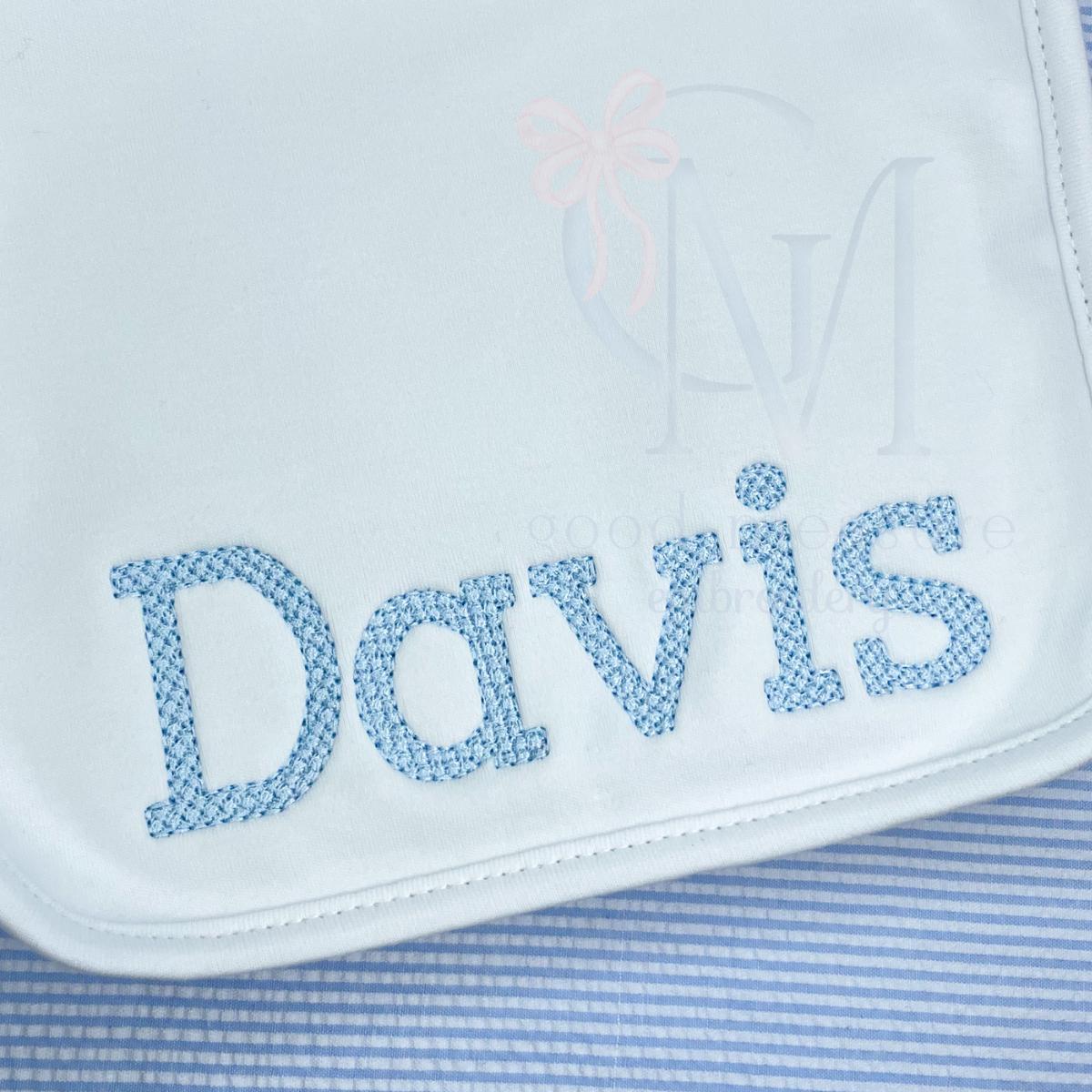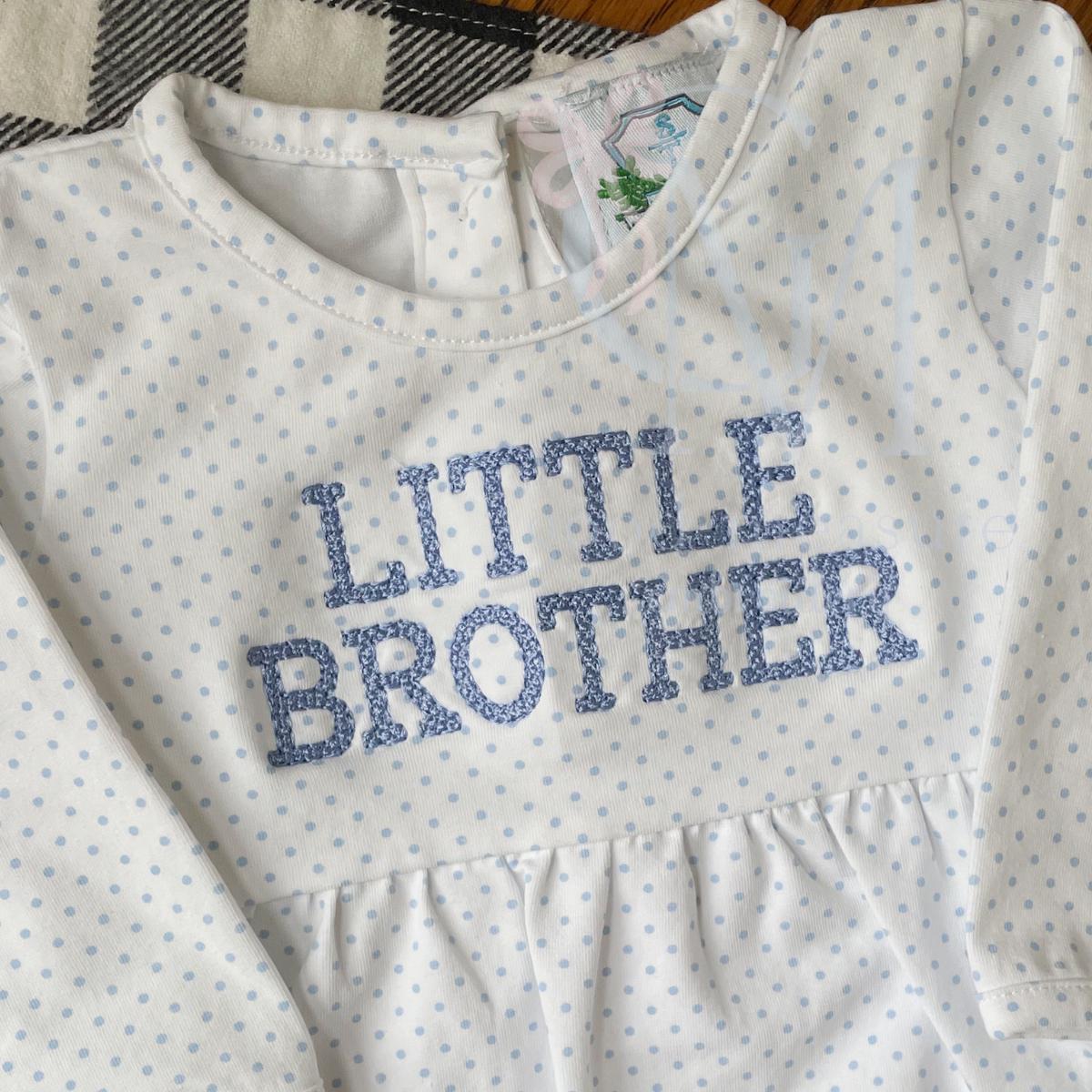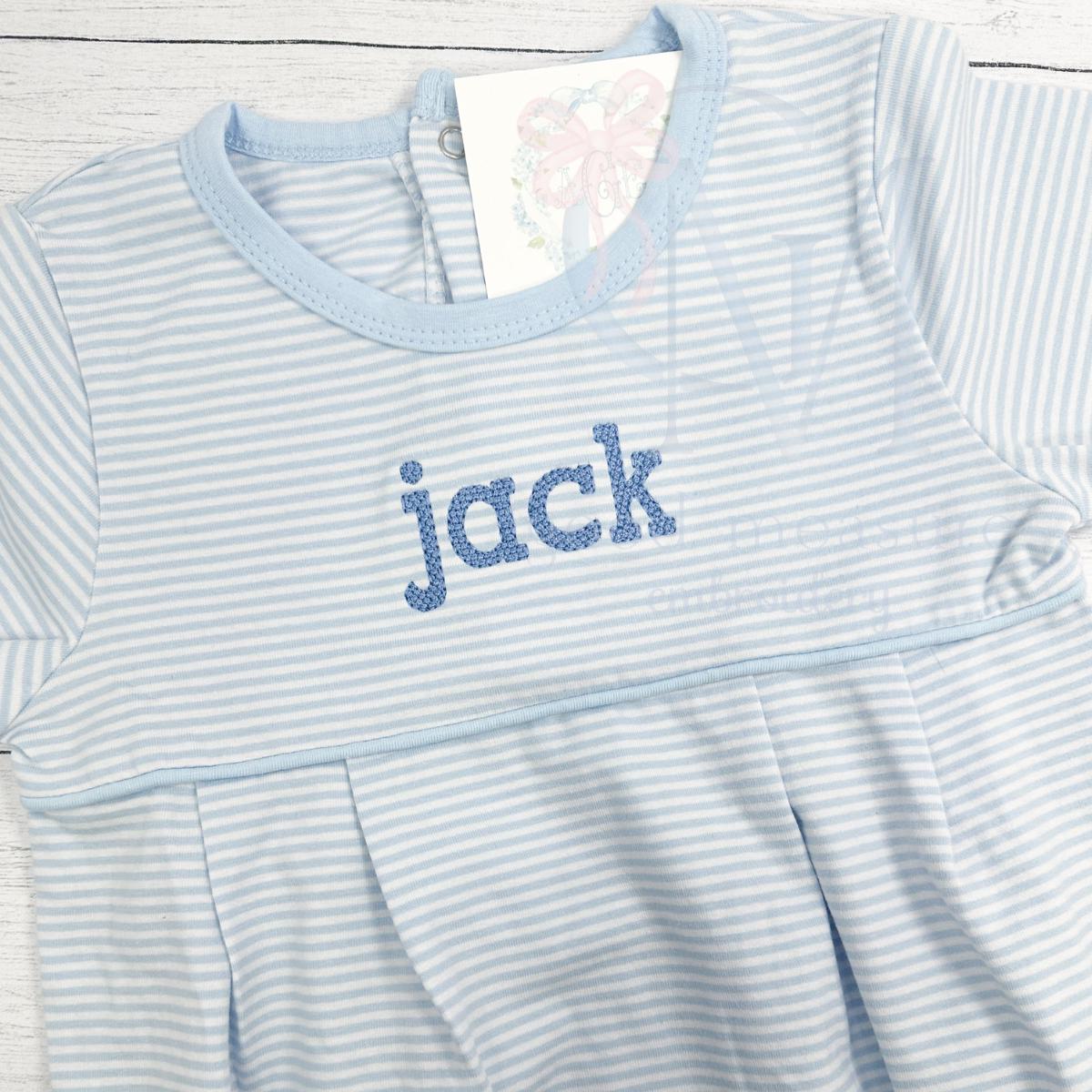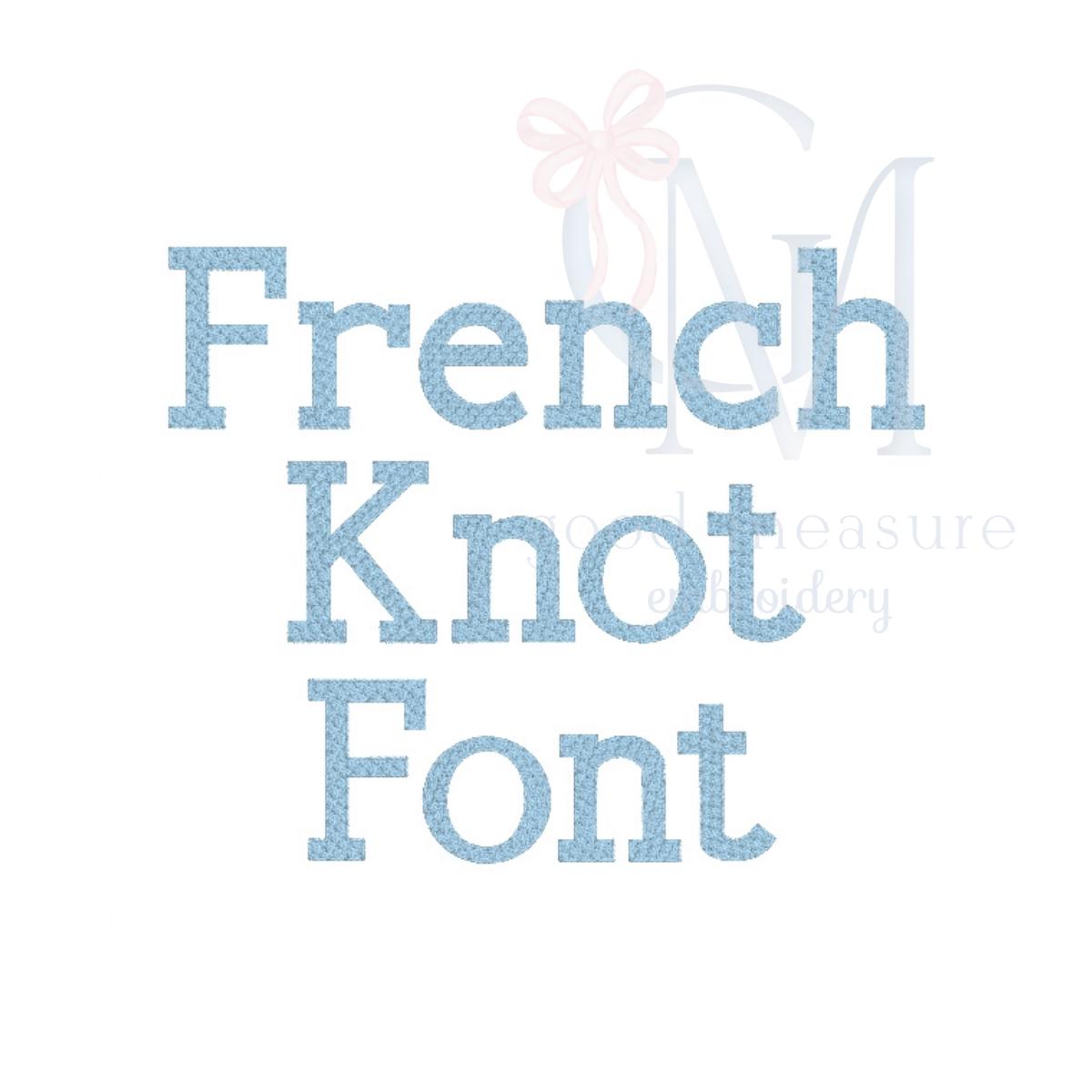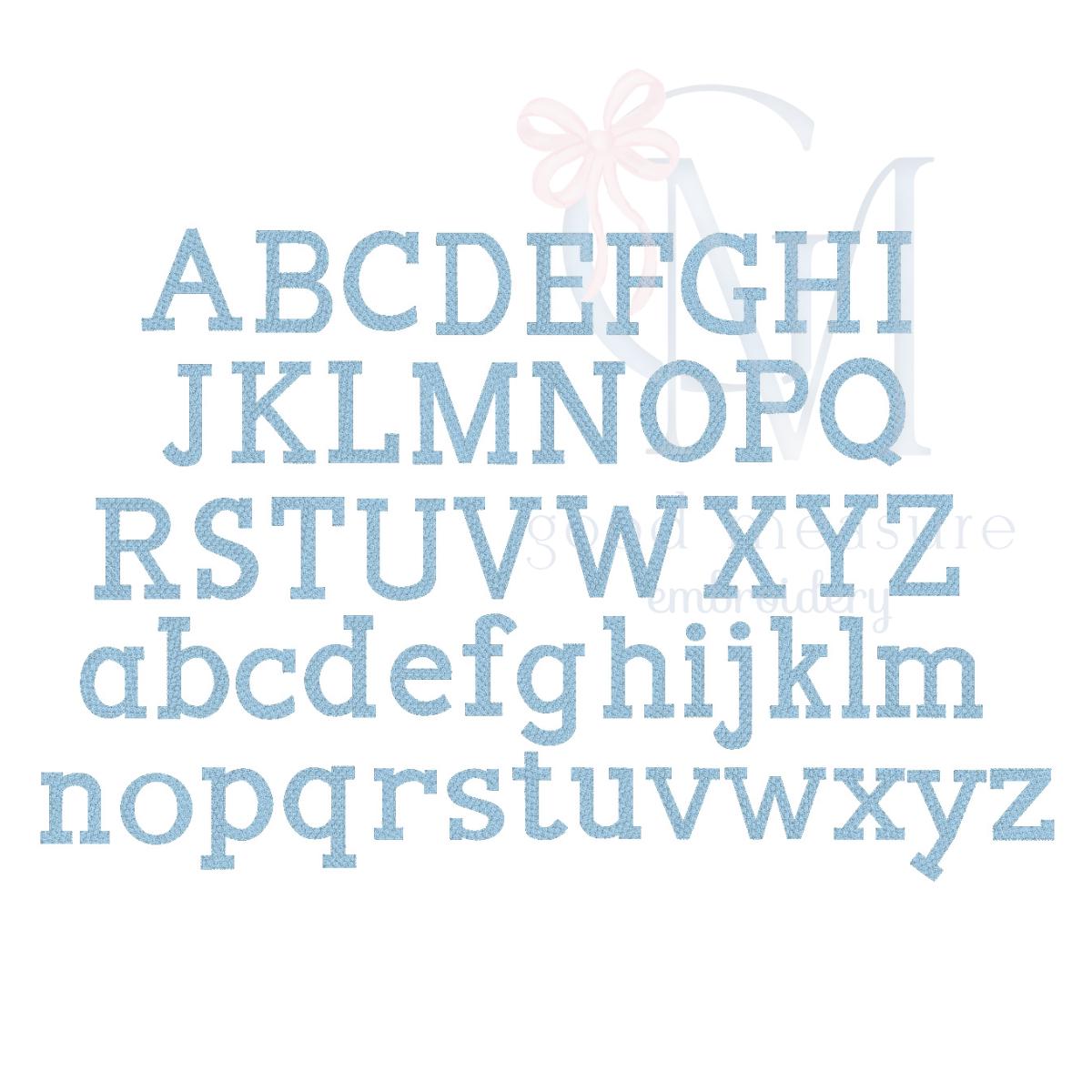
French Knot Font Embroidery Design
About this design:
This file includes capital letters (A-Z) for the French Knot font - in sizes 0.75, 1, 1.25, 1.5, 1.75, and 2 inches. Due to the nature of the French Knot texture, this font is not offered in BX and I do not recommend resizing.